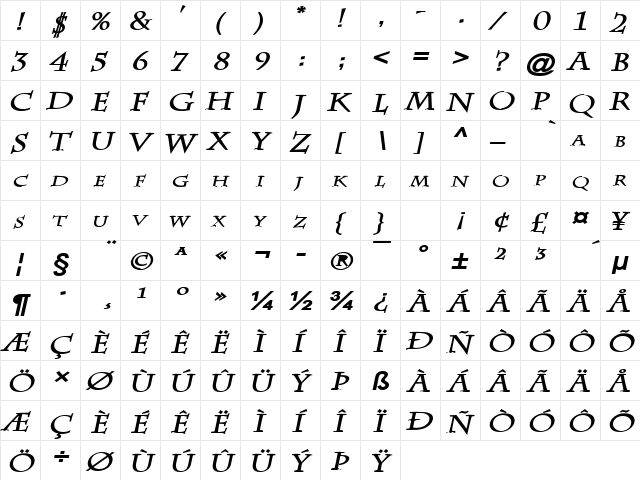
Chaz Wide BoldItalic Font Preview
Chaz Wide BoldItalic
Chaz Wide BoldItalic Font Details
Design Context for Chaz Wide Typeface
Chaz Wide is a composed and adaptable typeface that performs quietly and consistently across a wide range of design contexts. Its italic angle brings a sense of urgency and motion to the letterforms. The heavy weight commands attention and anchors typographic hierarchies.
Pro Tip: Try Chaz Wide for annotation and caption copy alongside an upright companion — the contrast in angle creates a dynamic but ordered typographic system.